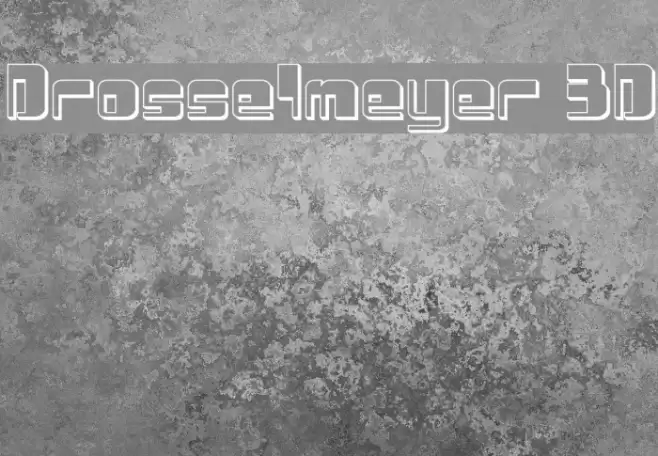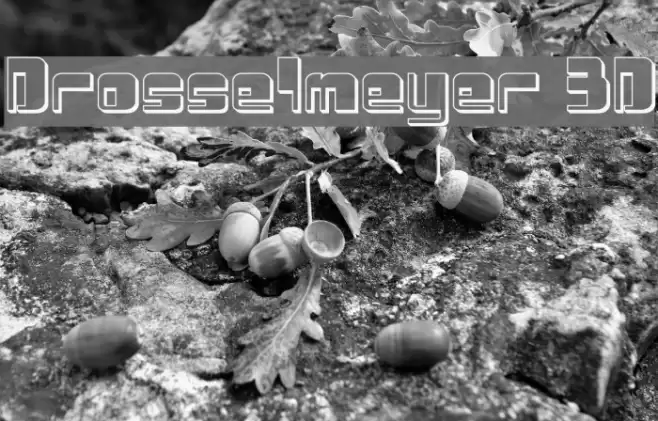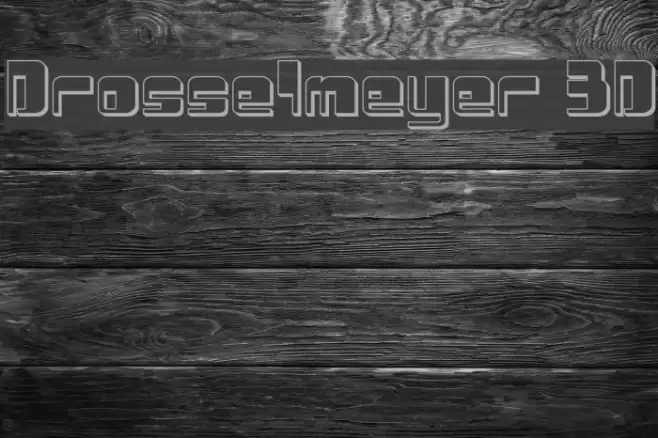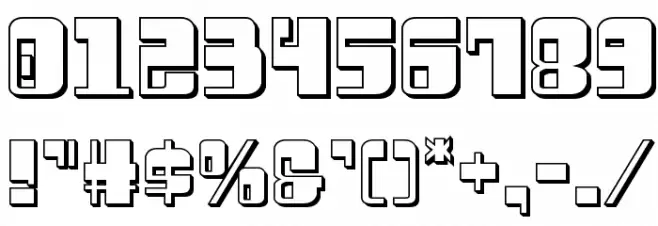
Drosselmeyer 3D Font
Drosselmeyer 3D Description
This font features a bold, three-dimensional outline style that gives each character a distinct, futuristic appearance. The uppercase and lowercase letters maintain a consistent geometric structure, with sharp angles and clean lines that create a sense of depth. The numerals and special characters follow the same design principles, ensuring a cohesive look across all glyphs. The font's unique style makes it stand out, with a modern and edgy vibe that is both eye-catching and versatile. Its structured form and open counters enhance readability while maintaining a strong visual impact.
A bold, 3D outline font with a futuristic and geometric design from Uncategorized fonts.
- Proposed Projects: Ideal for sci-fi themed projects, video game titles, posters, and branding that requires a modern and striking appearance.